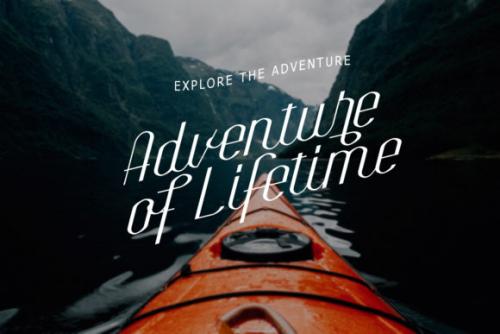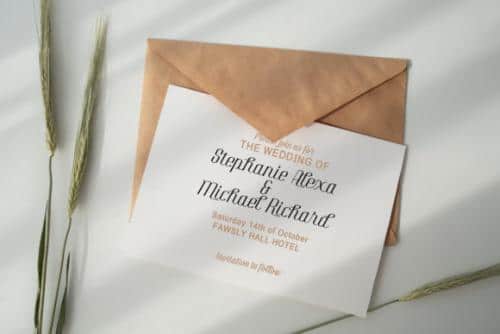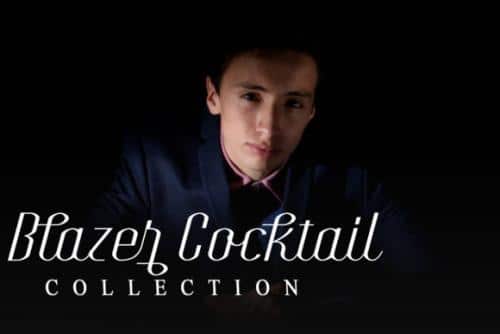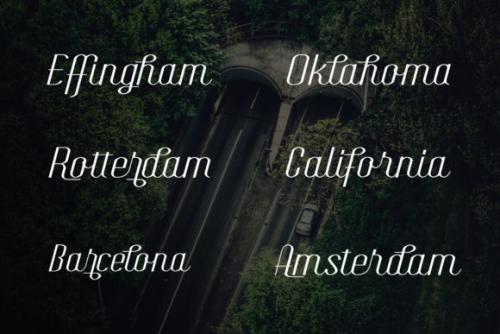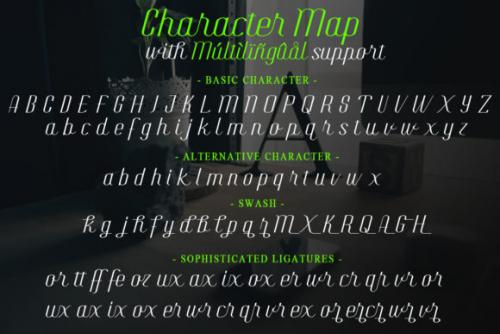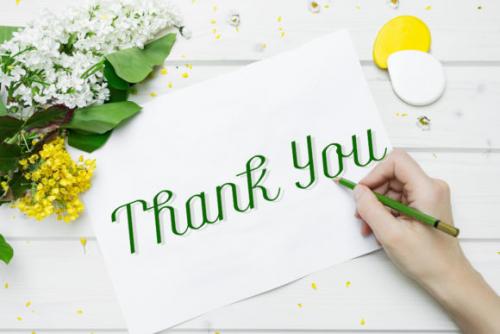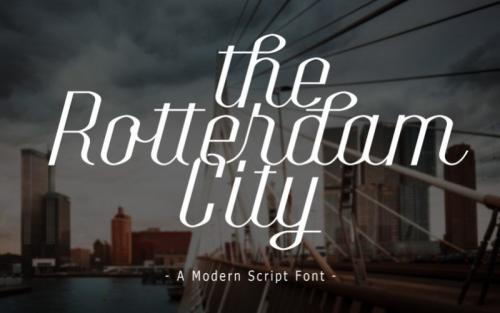
The Rotterdam City Script Font is a modern script font. It’s great for posters, apparel, product packaging, titles, magazines, headline and much more.
This font includes uppercase, lowercase, numerals, symbols, and multilingual support.